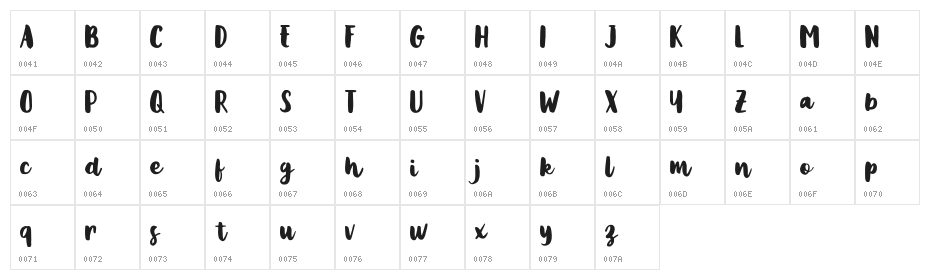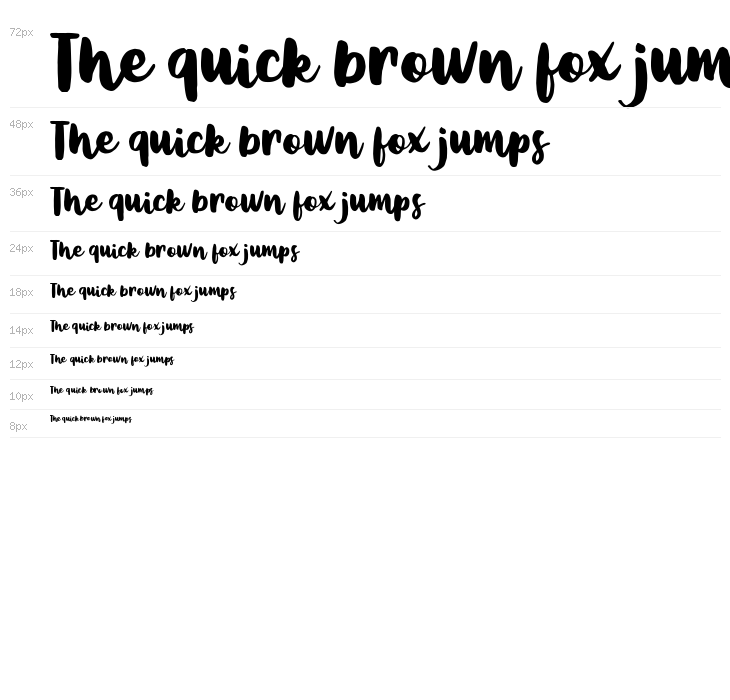
Metasha Font
Metasha Description
This font features a bold, handwritten style with a playful and artistic flair. The characters are thick and rounded, giving them a friendly and approachable appearance. The uppercase and lowercase letters maintain a consistent weight, contributing to a cohesive look. The strokes are smooth and fluid, with slight variations that add a touch of personality and uniqueness. The font's design is versatile, making it suitable for a variety of creative projects. Its boldness ensures readability while the handwritten style adds a personal touch.
| Use Case | Logos, Headlines, Posters |
| Proposed Projects | Ideal for greeting cards, posters, branding, and social media graphics. |